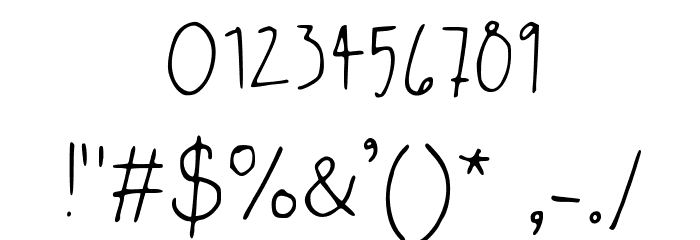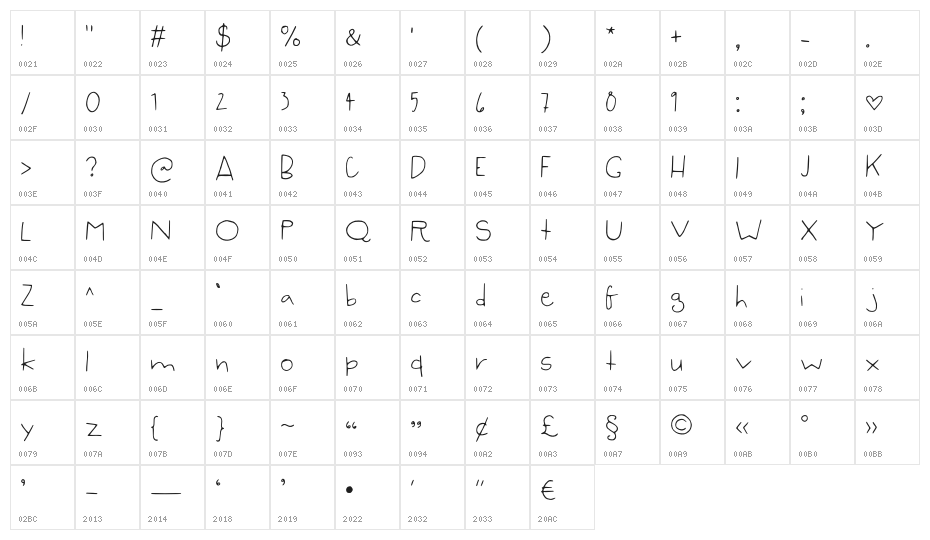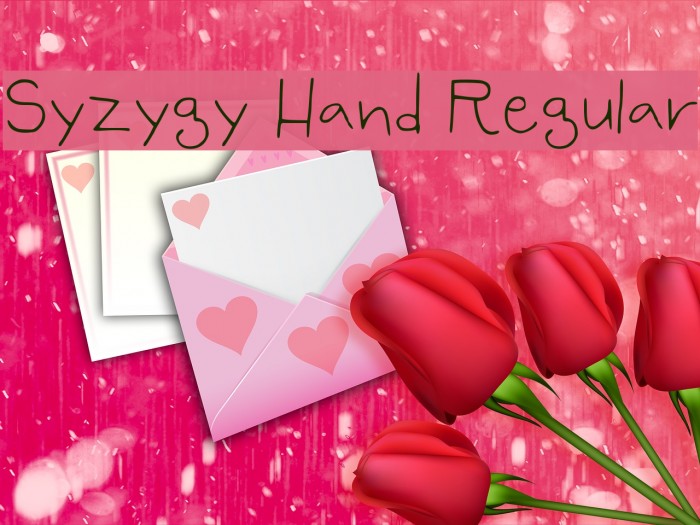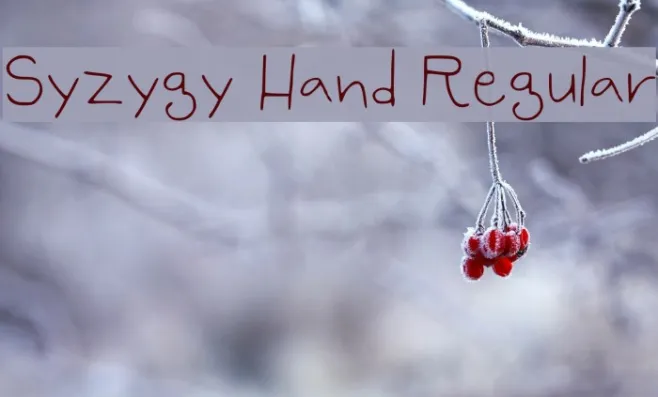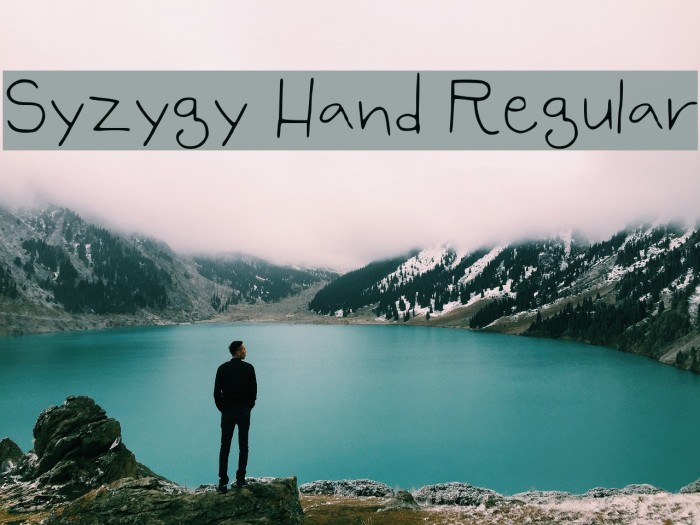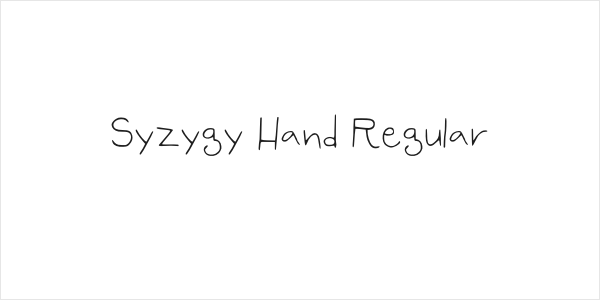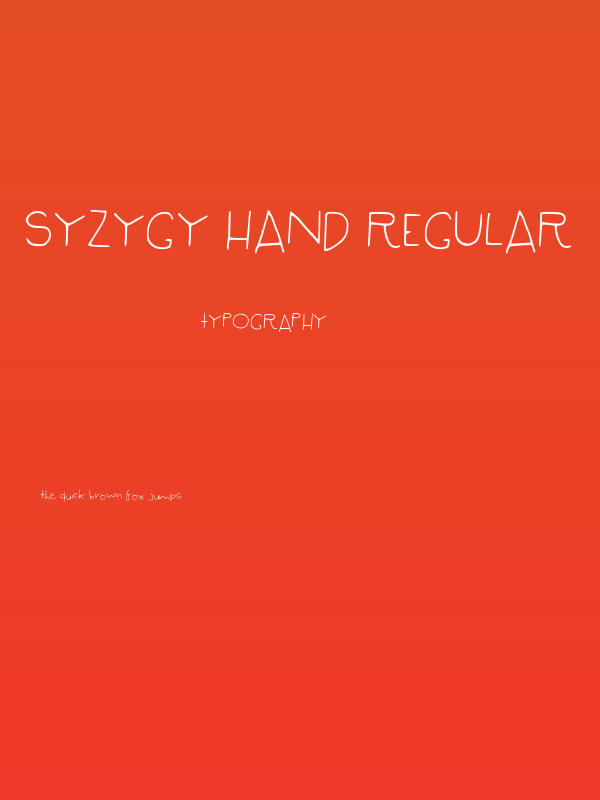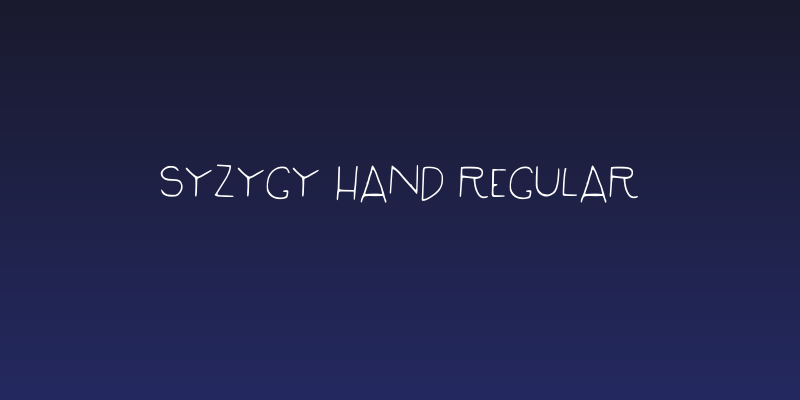
Syzygy Hand Regular Font
Syzygy Hand Regular Description
This font features a playful and casual handwritten style, characterized by its irregular strokes and whimsical appearance. The letters are slightly uneven, giving it a personal and informal touch. The uppercase and lowercase letters maintain a consistent style, with rounded edges and a friendly demeanor. The numerals and special characters follow the same playful aesthetic, making it suitable for creative and informal projects. The overall look is approachable and relaxed, perfect for adding a human touch to designs.
| Proposed Projects | Ideal for greeting cards, children's books, personal blogs, and informal branding. |